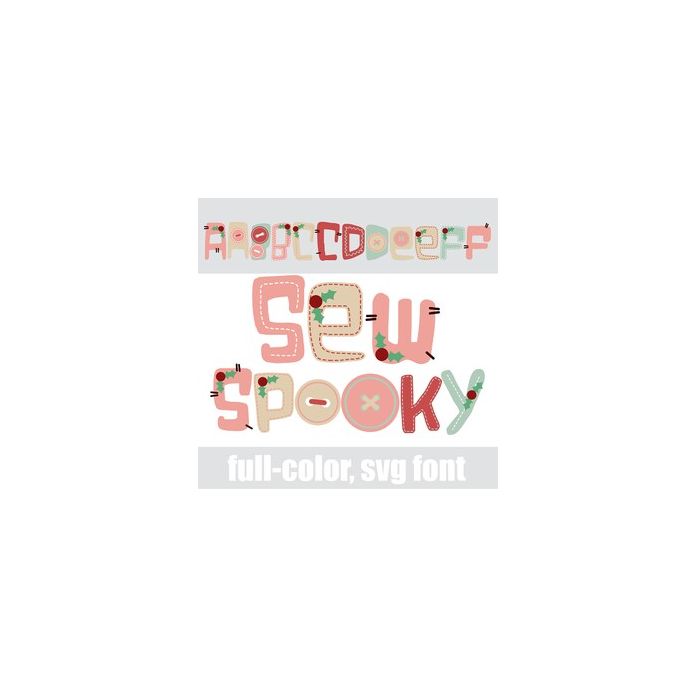
This full-color font features stuffed lettering in Christmas color palette with additional stitches, holly, buttons and more. There is an alt case w/ additional colors you can access through your system or Silhouette's glyph map.